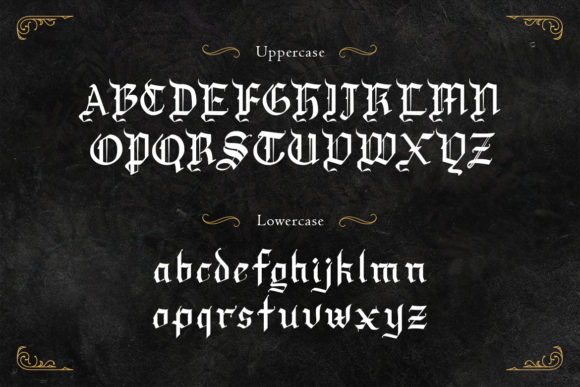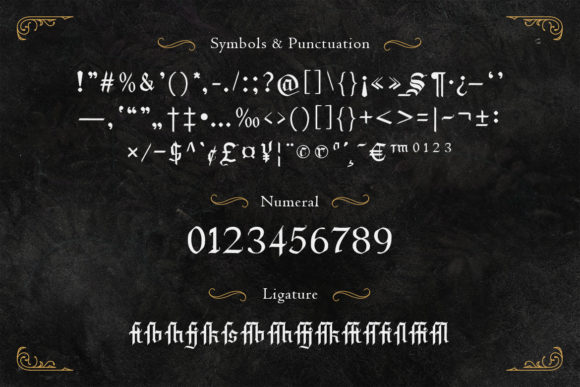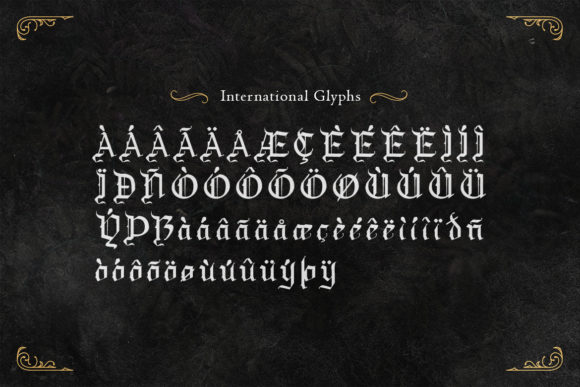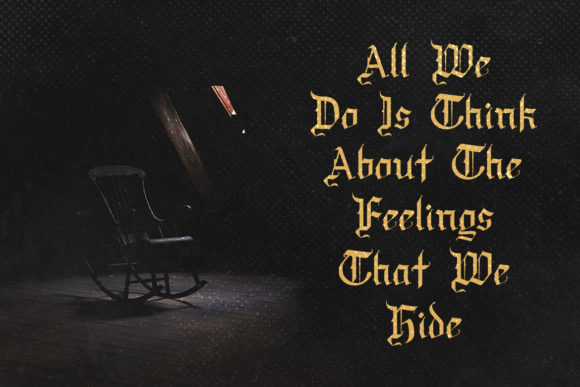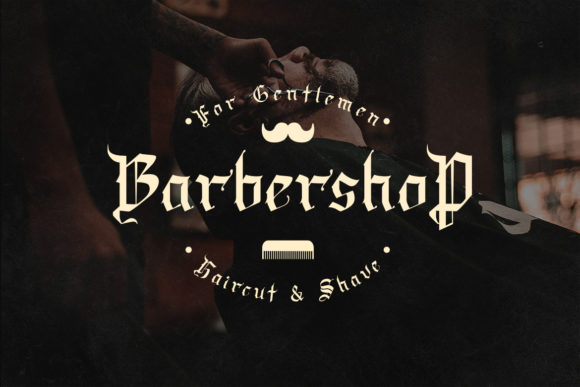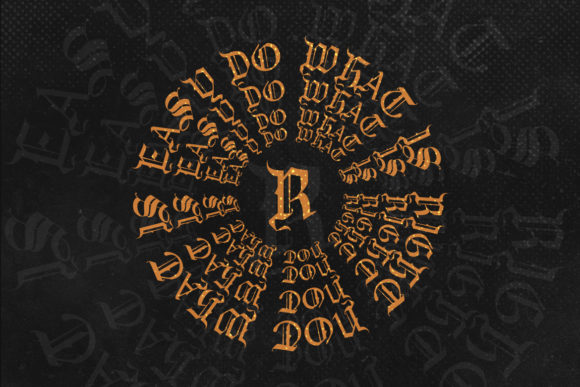
Draculie Font: The Ultimate Gothic Blackletter Font for Designers and Crafters
In the world of typography, fonts play a crucial role in conveying the tone and aesthetic of a design. For designers and crafters looking to add a touch of mystery, elegance, and sophistication to their projects, the Draculie font is an excellent choice. This gothic and authentic blackletter font is perfect for a wide range of applications, from tattoos and clothing to labels and packaging, branding, and Gothic-themed projects.
What is Draculie Font?
Draculie font is a typeface that embodies the essence of traditional Gothic blacklettering. Its intricate and ornate design makes it a standout among other fonts, with a unique character that adds a touch of drama and flair to any design. The font’s Gothic roots are evident in its bold, cursive strokes and sharp, pointed edges, which evoke a sense of mystery and romance.
Key Features of Draculie Font
- Gothic and Authentic Blackletter Design: Draculie font boasts an authentic blackletter design, reminiscent of traditional Gothic typography.
- Highly Versatile: Suitable for a wide range of applications, including tattoos, clothing, labels and packaging, branding, and Gothic-themed projects.
- Unique Character: The font’s intricate design and ornate details make it a standout among other fonts.
- Elegant and Sophisticated: Draculie font adds a touch of elegance and sophistication to any design.
Uses of Draculie Font
Draculie font is an incredibly versatile typeface that can be used in a variety of contexts. Here are some of the most popular uses of this font:
- Tattoos: The font’s bold, Gothic design makes it perfect for tattoos, adding a touch of mystery and elegance to any design.
- Clothing and Apparel: Draculie font is ideal for designing clothing and apparel with a Gothic or medieval theme.
- Labels and Packaging: The font’s unique character makes it suitable for labels and packaging, adding a touch of sophistication to any product.
- Branding: Draculie font can be used to create bold, eye-catching logos and branding materials that make a lasting impression.
- Gothic-Themed Projects: The font is perfect for any Gothic-themed project, from invitations and posters to websites and social media graphics.
Why Choose Draculie Font?
With so many fonts available, why choose Draculie font for your next project? Here are a few compelling reasons:
- Unique Design: Draculie font boasts a unique design that sets it apart from other fonts.
- Highly Versatile: The font can be used in a wide range of applications, making it a great addition to any designer’s toolkit.
- Elegant and Sophisticated: Draculie font adds a touch of elegance and sophistication to any design, making it perfect for designers and crafters looking to create high-end designs.
In conclusion, Draculie font is a versatile and elegant typeface that is perfect for designers and crafters looking to add a touch of mystery, elegance, and sophistication to their projects. With its unique Gothic blackletter design, highly versatile applications, and easy-to-use format, Draculie font is an excellent choice for any designer or crafter looking to create bold, eye-catching designs.